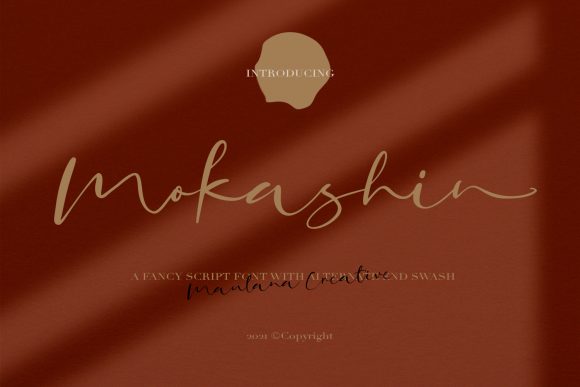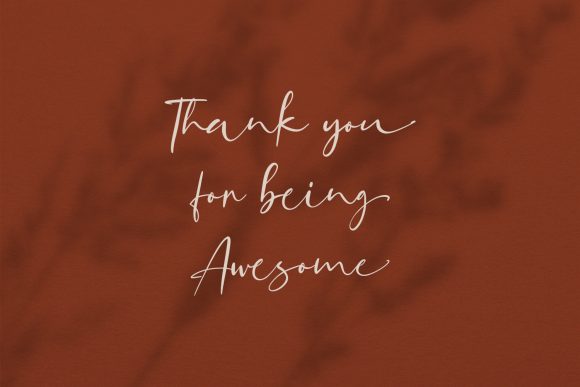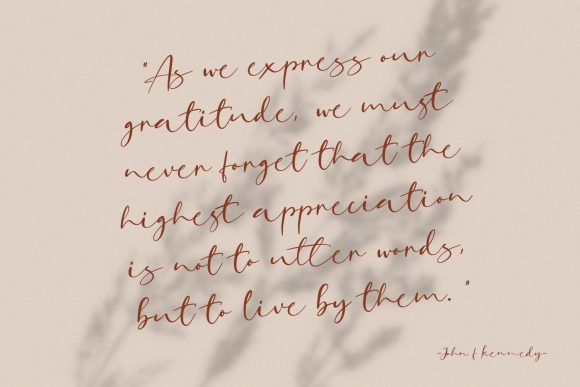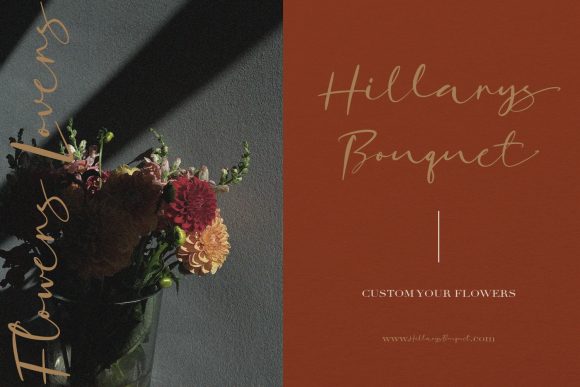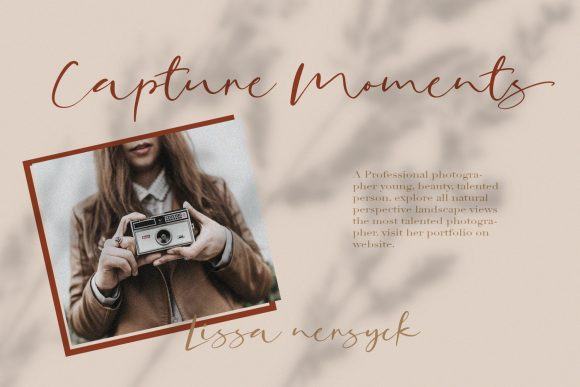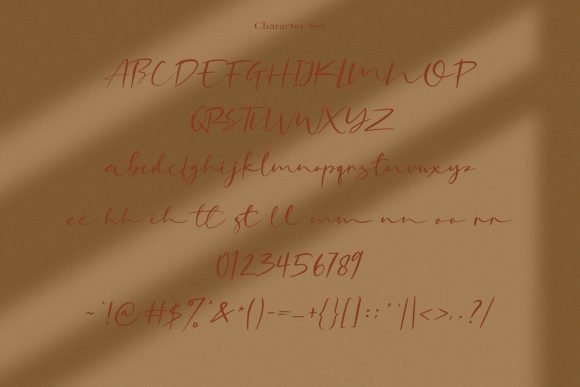
About Mokashin Font
Mokashin is a beautiful light handwritten font with a unique feel and a stunning impact. It will add a luxury spark to any design project that you wish to create!